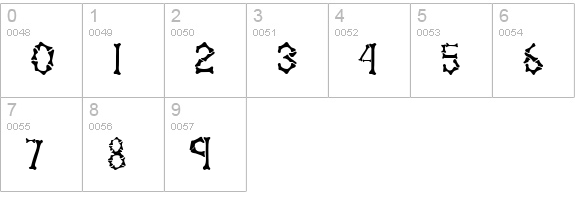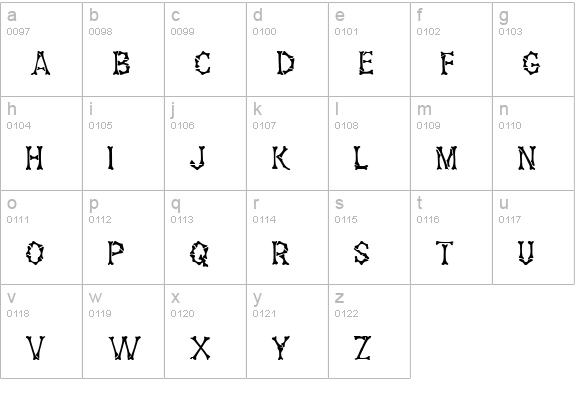
BONES font is a striking display typeface that exudes a bold and edgy aesthetic. With its sharp angles and skeletal-inspired design, this font is perfect for making a statement in your typography projects. BONES font is versatile and can be used for a variety of design purposes, from branding to posters to social media graphics. The best part? BONES font is available for free download at FontsMarket.com! So you can easily add this unique and eye-catching font to your collection without breaking the bank. Don't miss out on the opportunity to elevate your designs with the distinctive look of BONES font. Download it now and let your creativity shine!